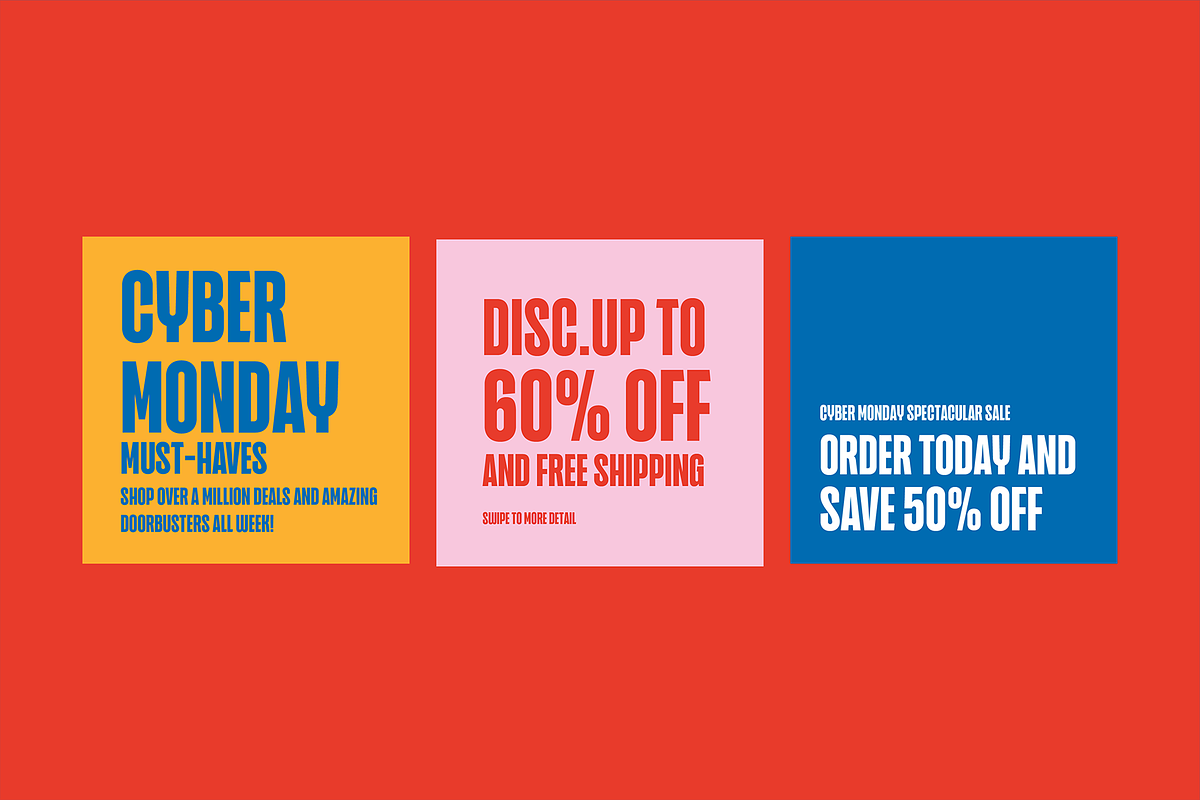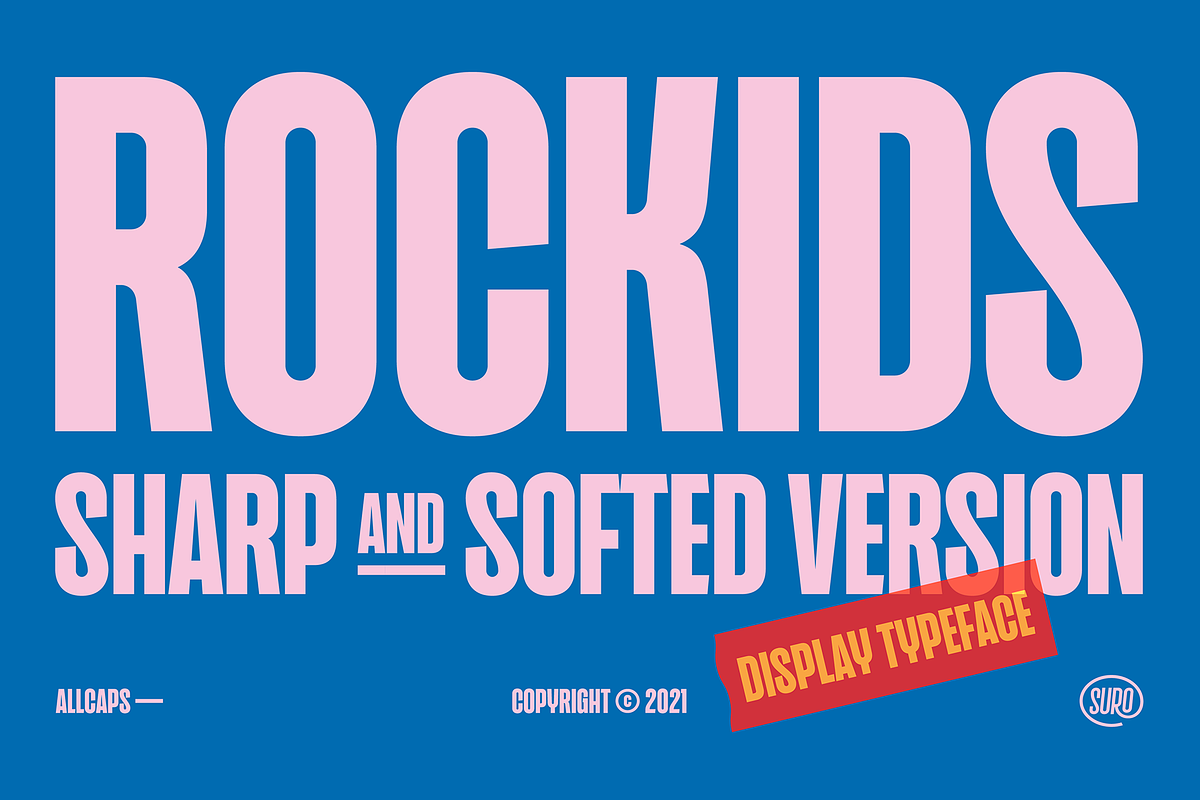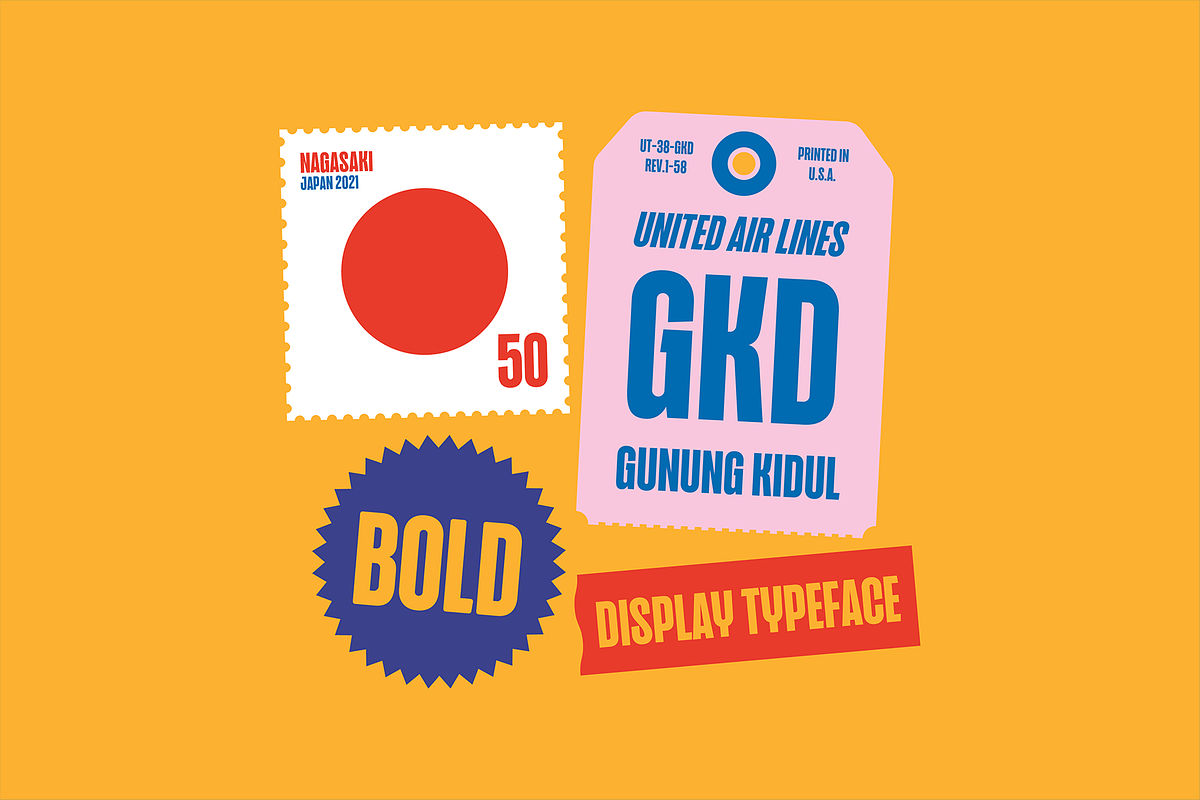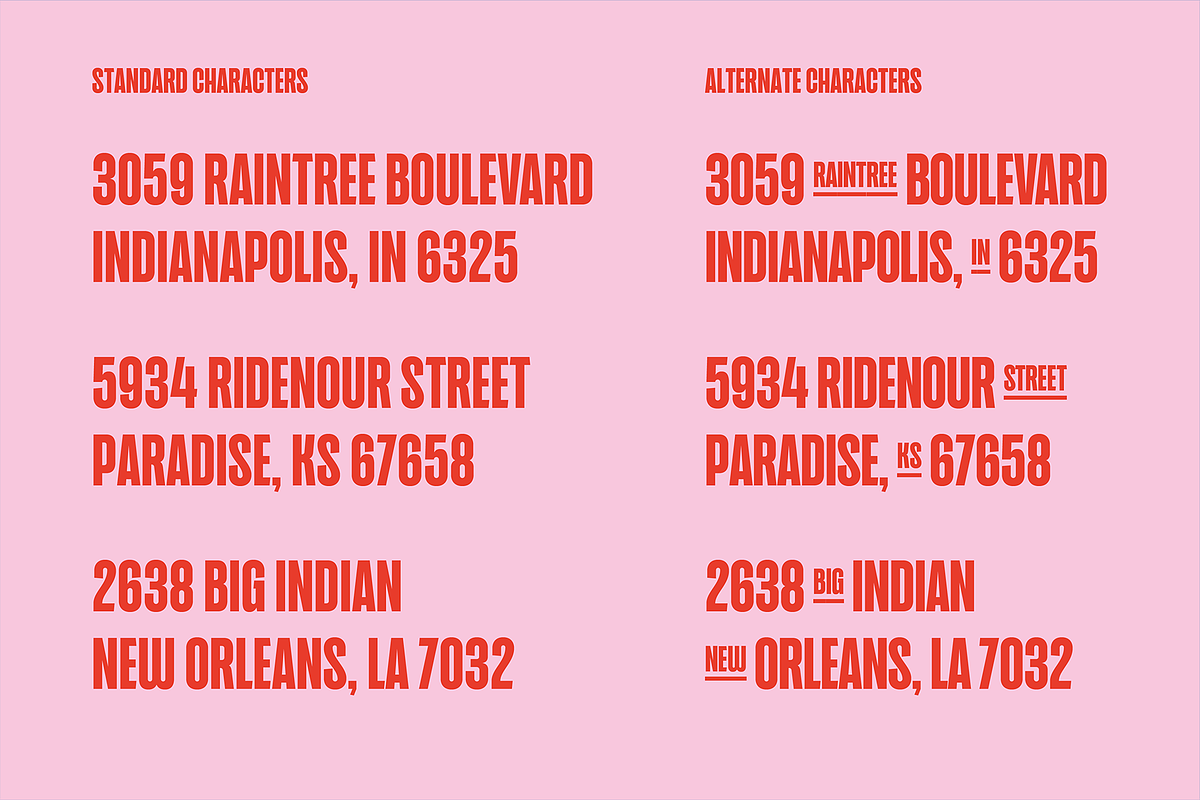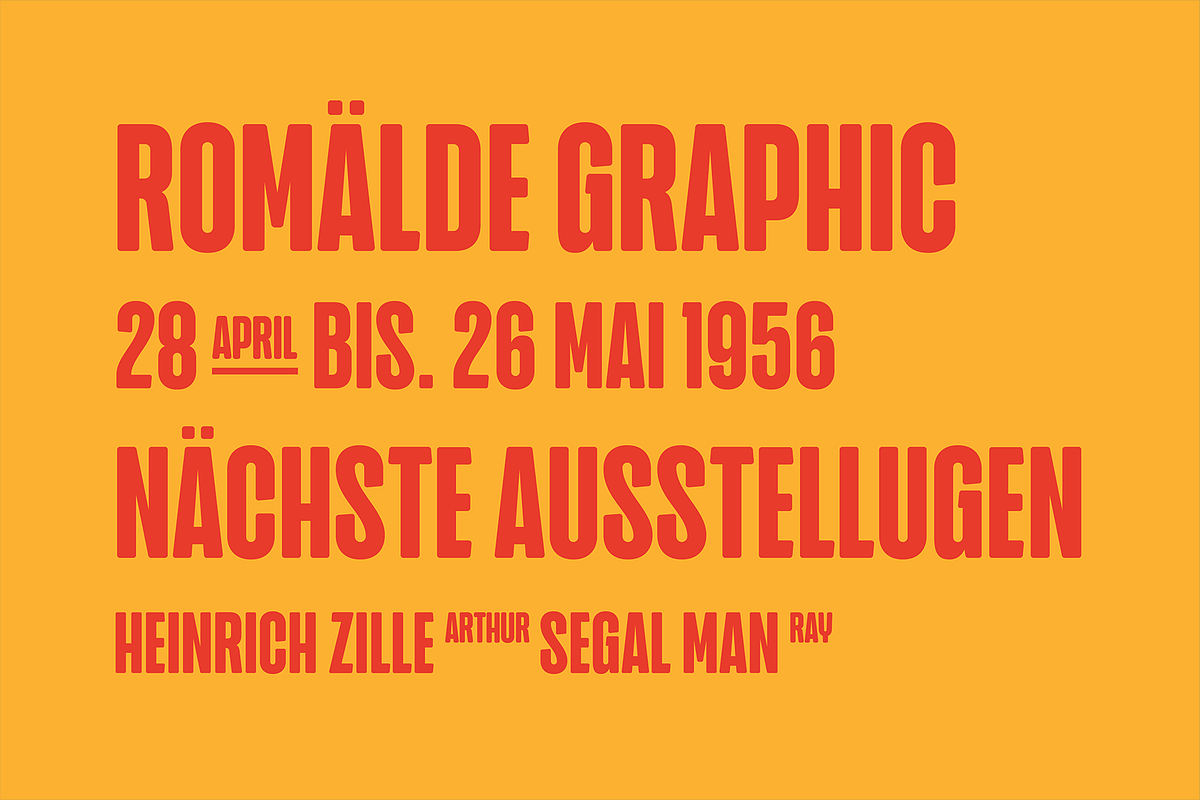
Rockids - Display
Rockids is a bold display typeface, Comes in two styles sharp and softed with bold characters, this font is perfect for headlines, posters, movie titles, Games, branding and others.